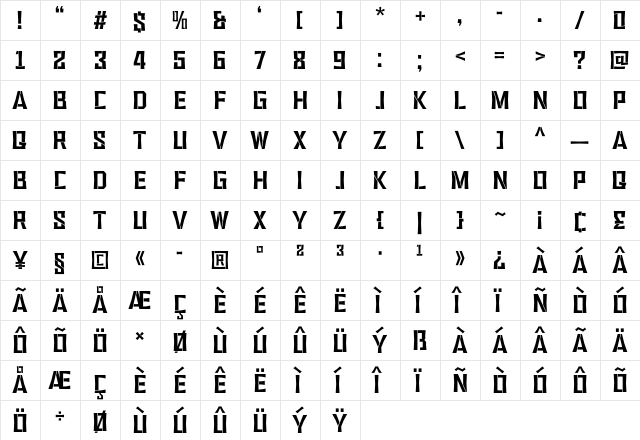
VEMBAZAX RM STENCIL Regular
Design Context for VEMBAZAX RM STENCIL Typeface
VEMBAZAX RM STENCIL borrows the utilitarian aesthetic of stencil lettering, with its characteristic cutaways and no-frills construction lending an industrial edge.
A strong choice for packaging that needs edge, warehouse aesthetics, and rough-and-ready visual identities.
Pro Tip: Use VEMBAZAX RM STENCIL at large sizes on packaging, posters, or apparel where the stencil cutaways read clearly. Avoid small sizes where those gaps become visual noise.